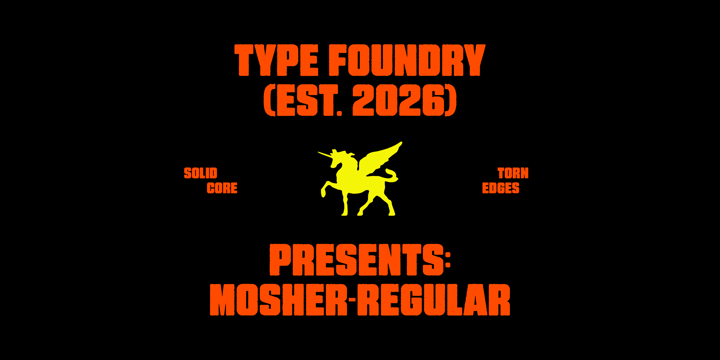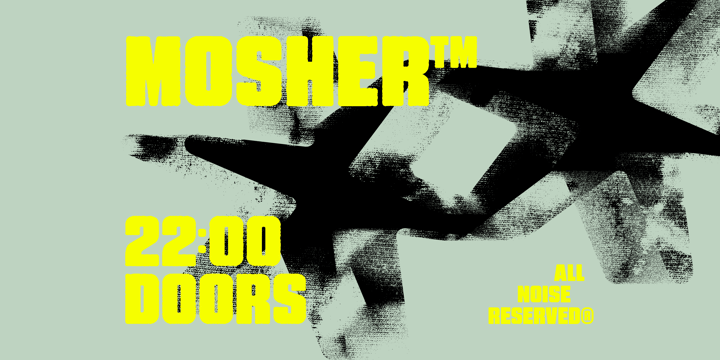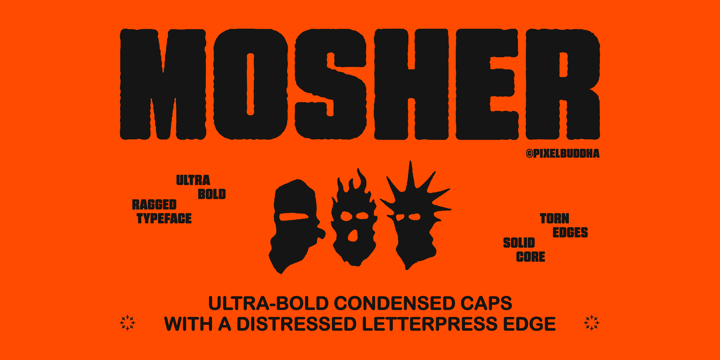
Nikita Kuznetsov
Nikita Kuznetsov is the art director of Pixelbuddha Studio and the designer behind the studio’s original typefaces. His practice grows out of graphic design and art direction, giving him a practical view of how typography works within complete visual systems.
He focuses on expressive display fonts with memorable silhouettes, clear concepts, and a strong individual character. For Nikita, a typeface should do more than look distinctive in a specimen: it should help establish mood, hierarchy, and identity across branding, packaging, editorial layouts, posters, and digital projects.
His work balances experimentation with usability, turning strong visual ideas into flexible tools for contemporary designers.